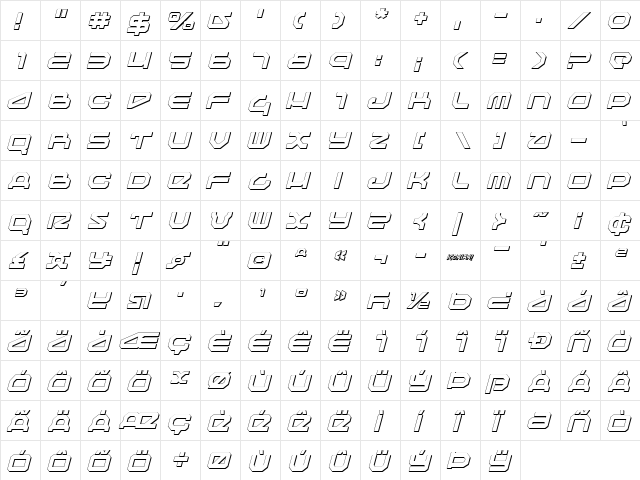
Traveler Shadow Italic Italic
Design Context for Traveler Shadow Italic Typeface
Traveler Shadow Italic brings ornamental detail and strong personality to headlines and identities, where visual impact matters more than quiet functionality. Its italic angle brings a sense of urgency and motion to the letterforms.
Font Pairing: Pair with a clean neutral sans-serif for body copy to let Traveler Shadow Italic's character lead without overwhelming the composition.
Pro Tip: Use Traveler Shadow Italic exclusively at display sizes — it was designed to be seen, not read at length. Let a neutral companion handle body copy.